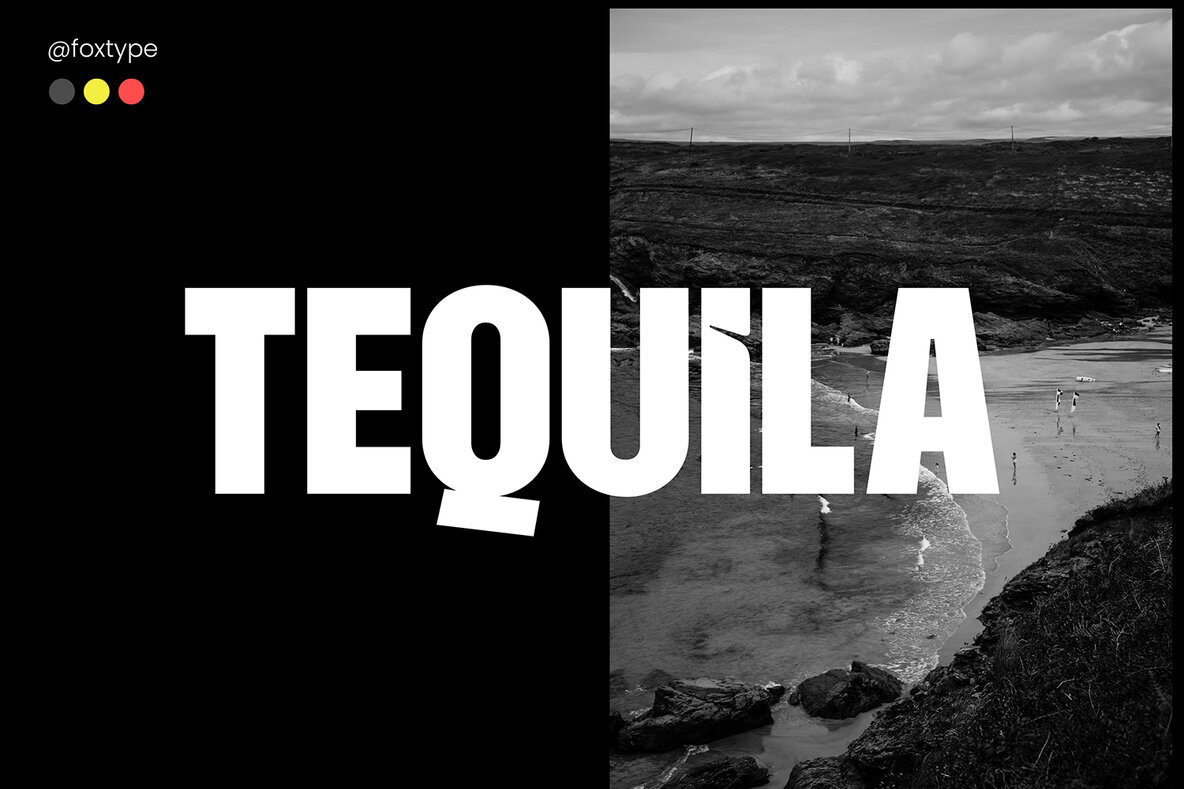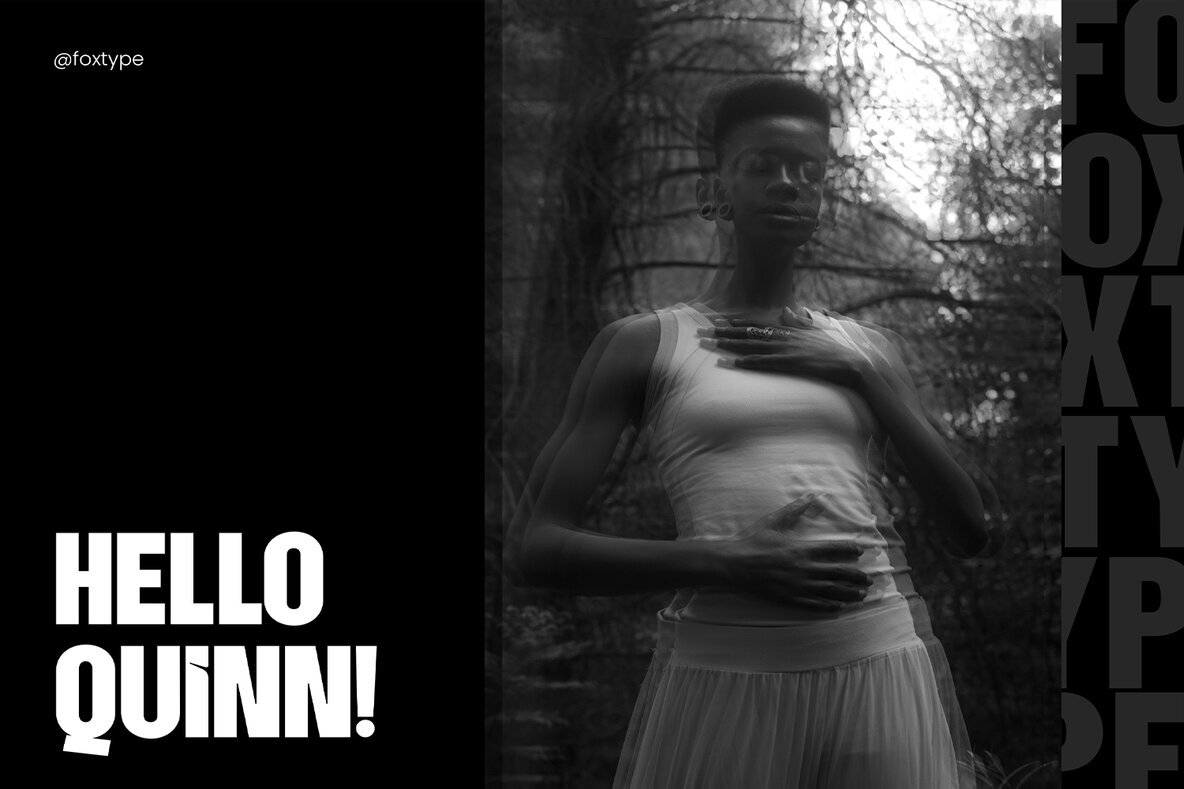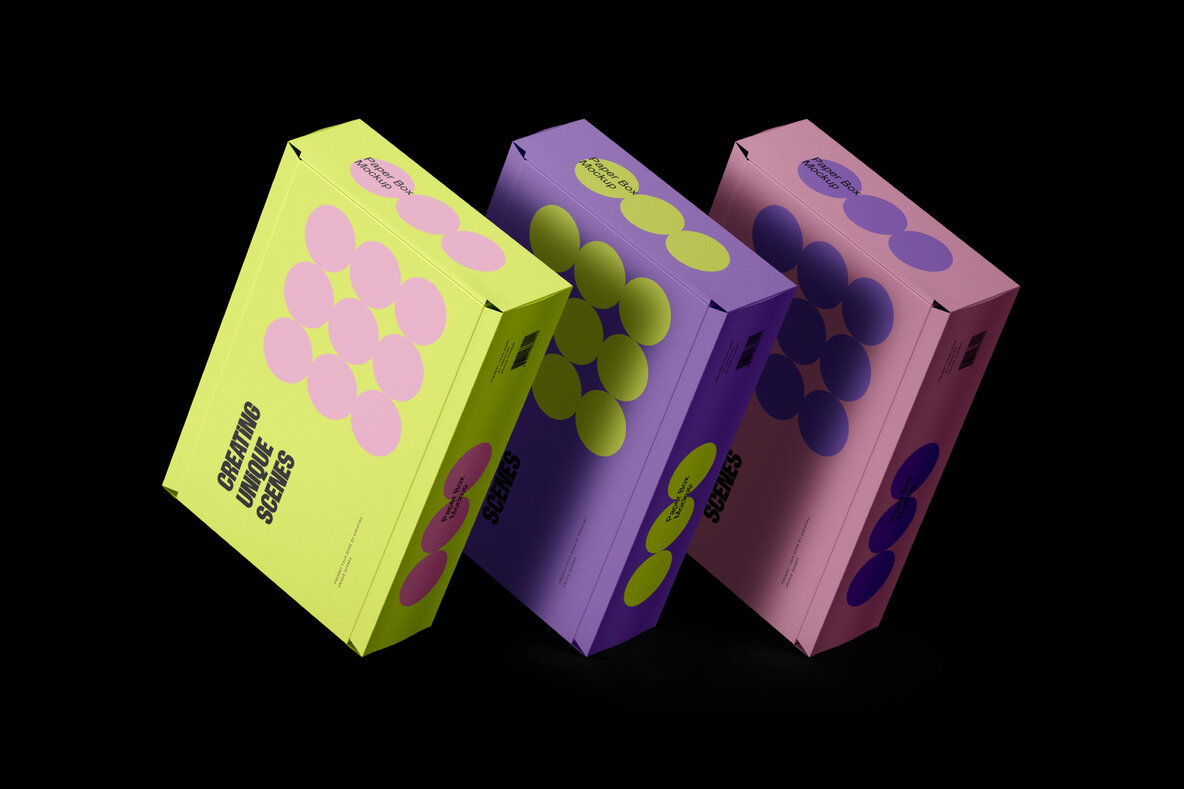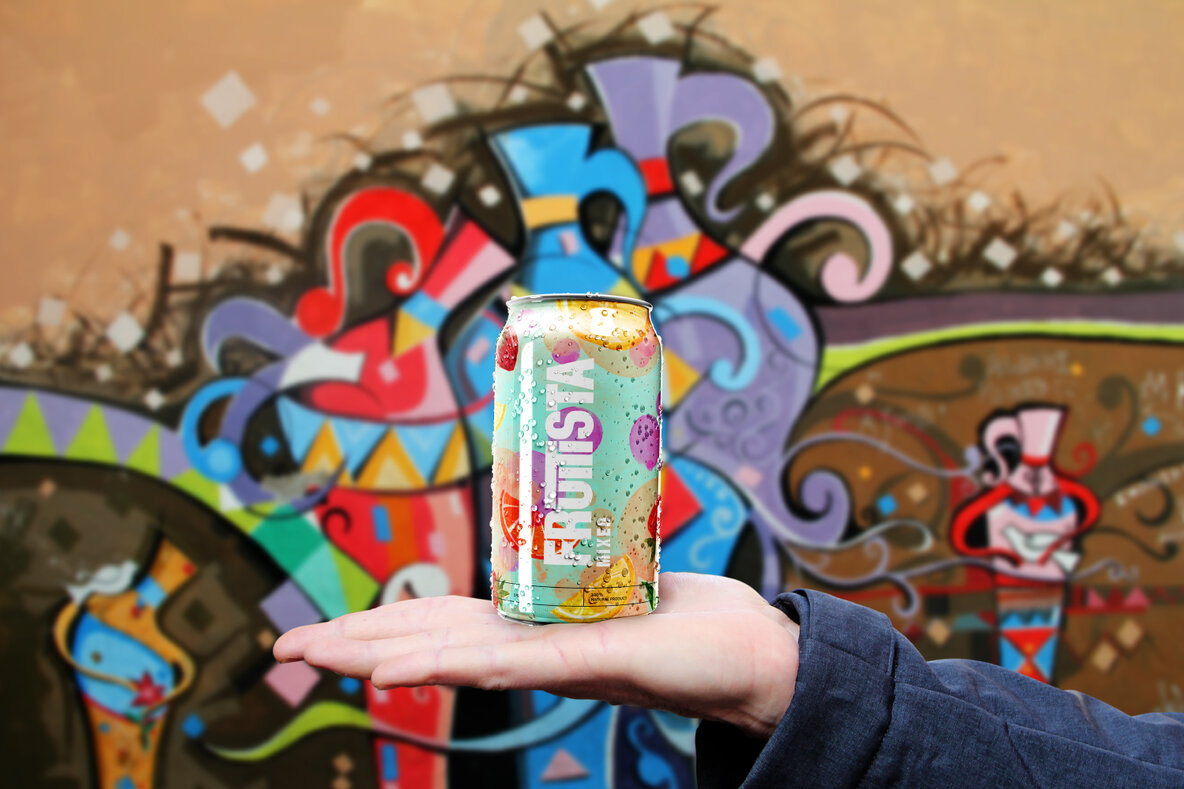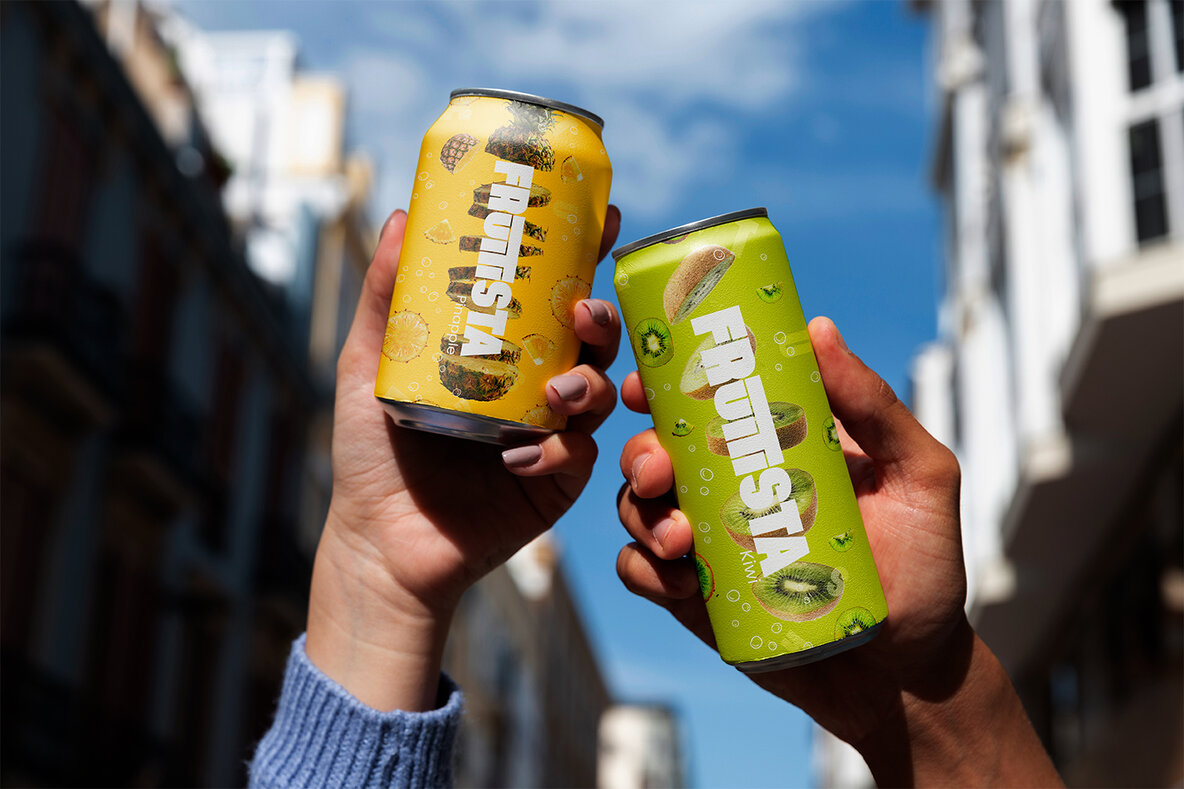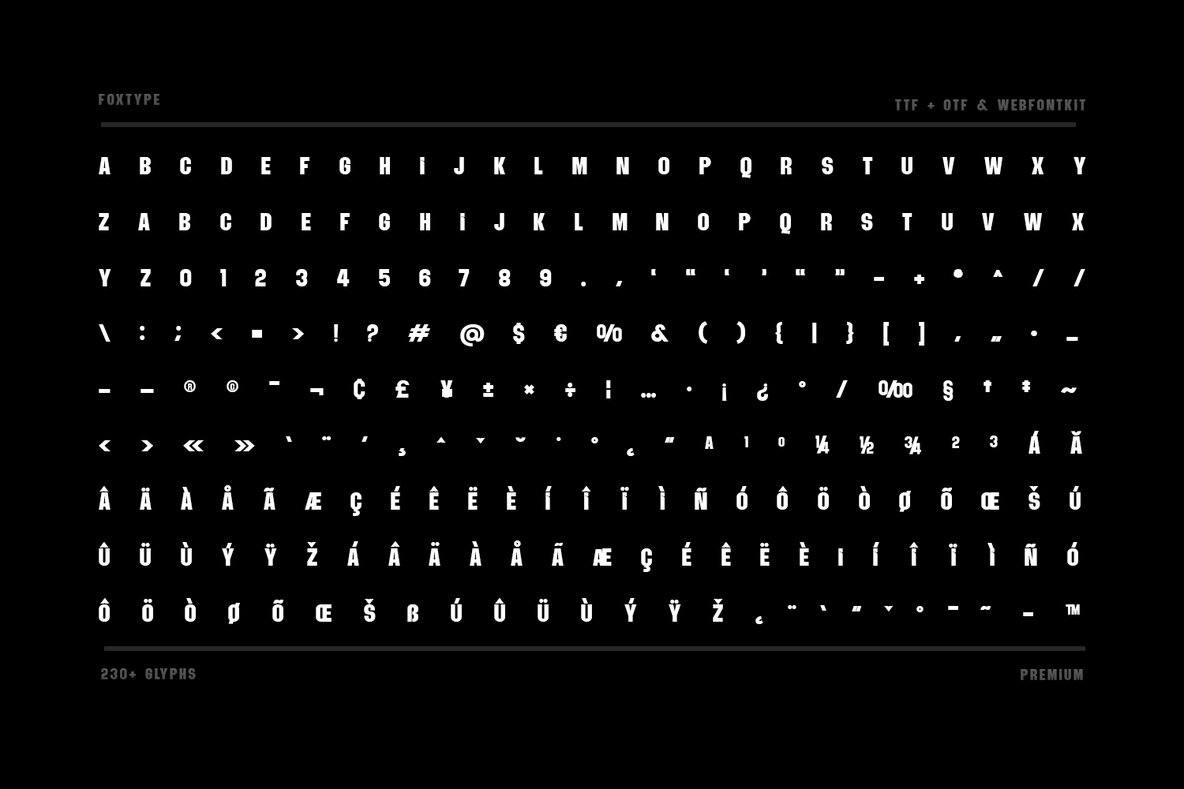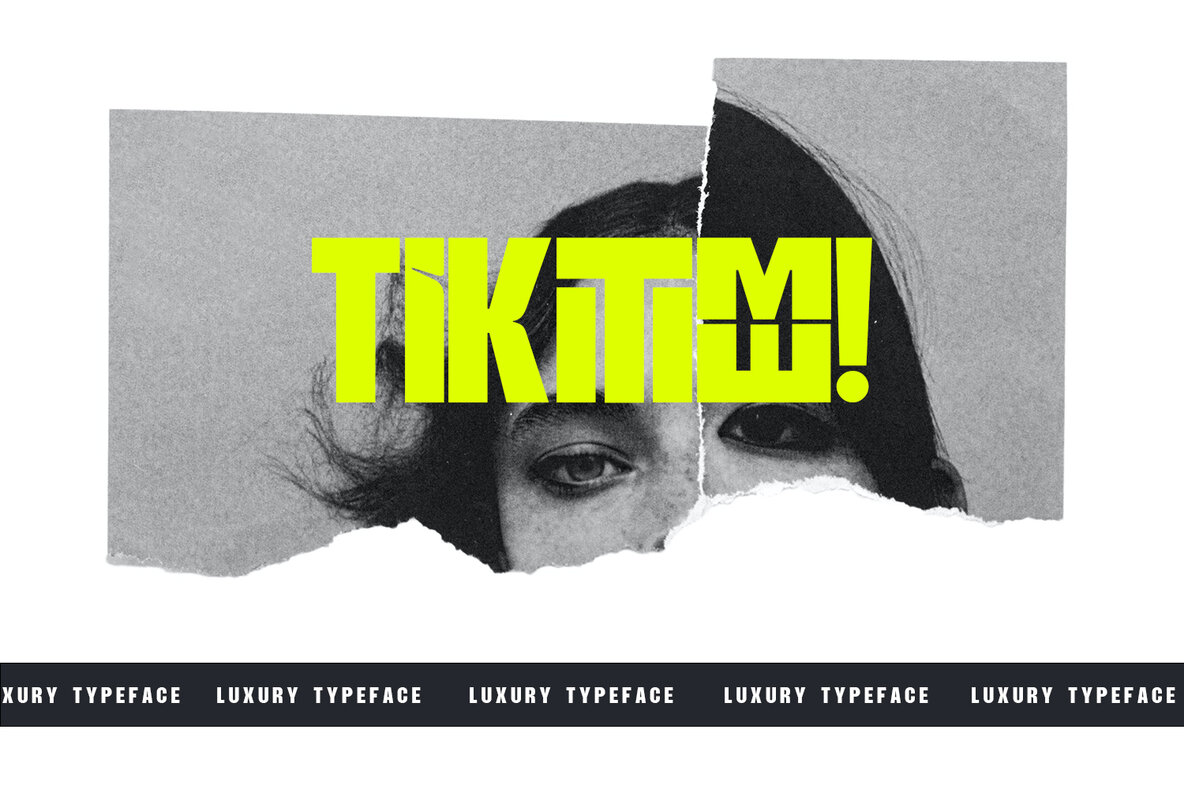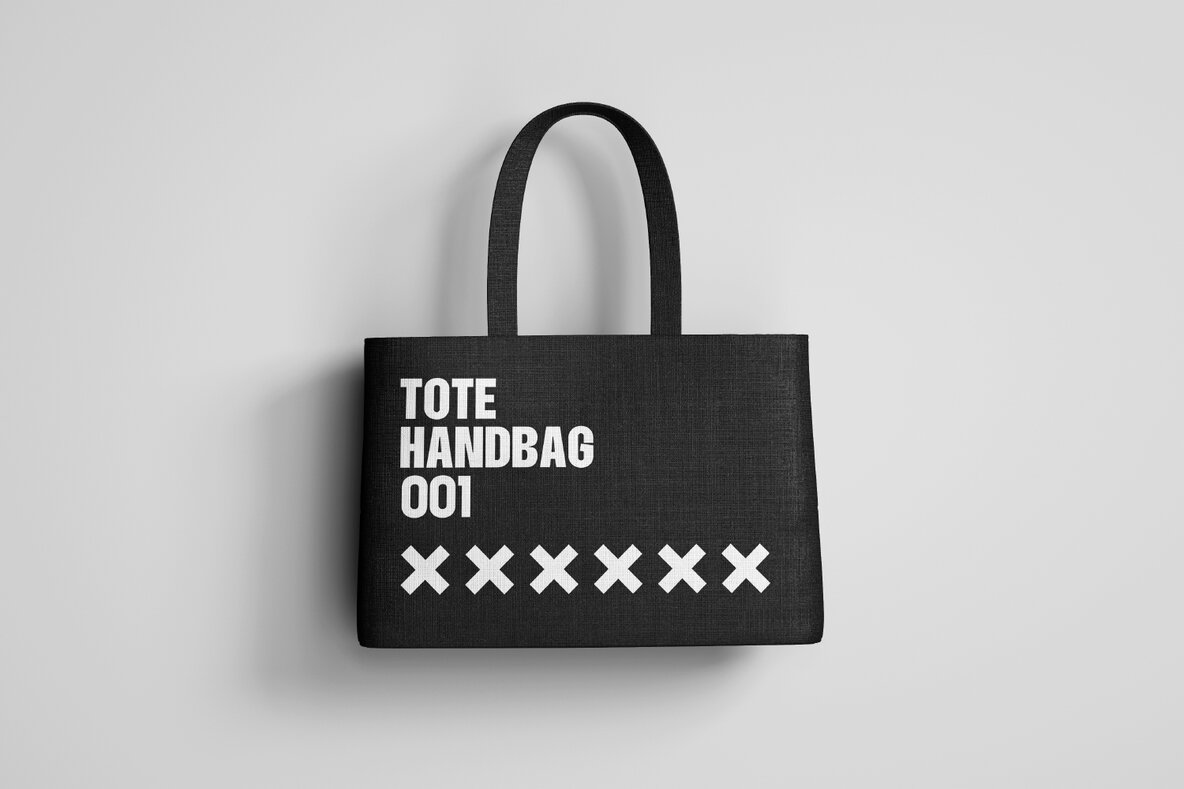
Quinn Font
Quinn Bold
Introducing Quinn Display, a new generation typeface meticulously designed to build a strong brand identity. This typeface is crafted with precision and mathematical accuracy to captivate your audience and enhance your brand's presence. Quinn excels in all the tasks required of a corporate font, and is versatile enough for use in a wide array of projects, such as branding, logos, titles, headlines, banners, posters, screens, digital ads, and much more. With a commitment to excellence, Quinn Display is the result of extensive effort as a long-term project, ensuring its enduring value for your design needs.